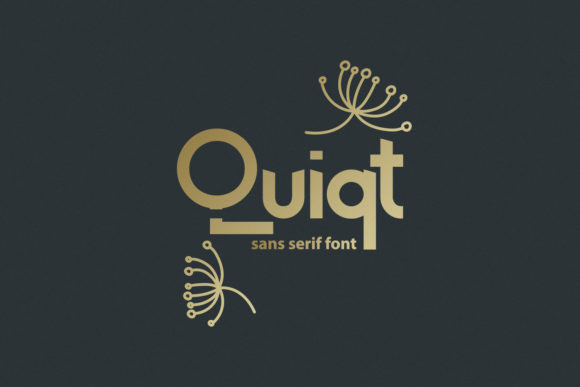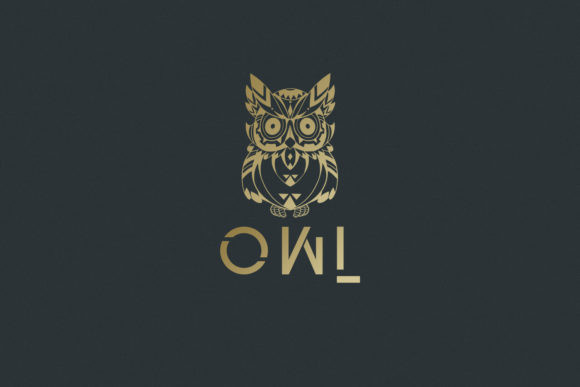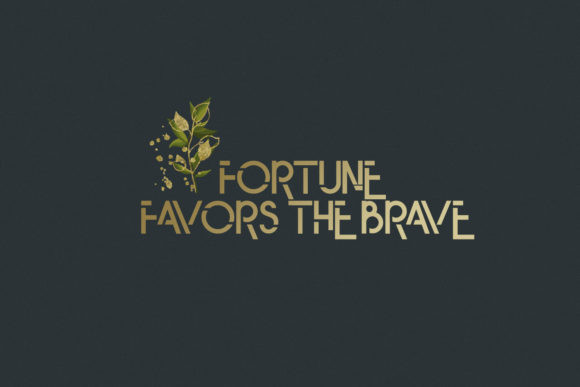
Quiqt Font
Quiqt celebrates abstract shapes in all their eclectic beauty. This playfully display typeface font will look truly outstanding in a wide range of contexts.